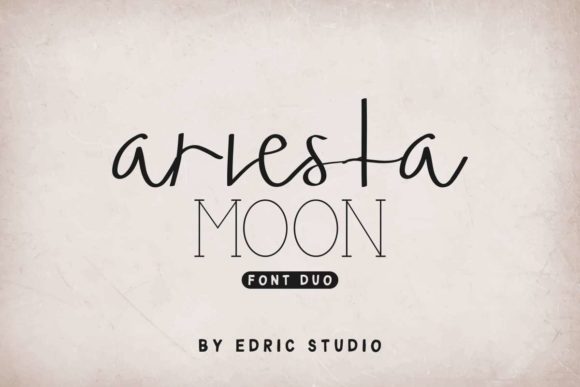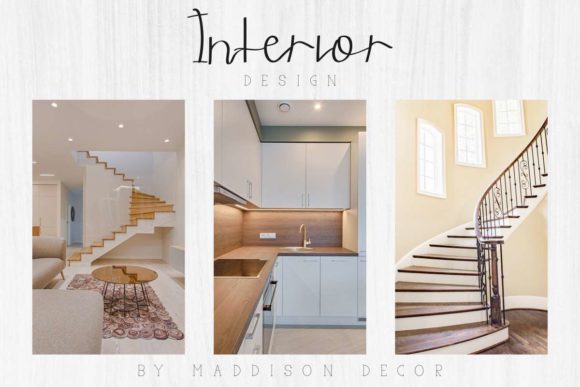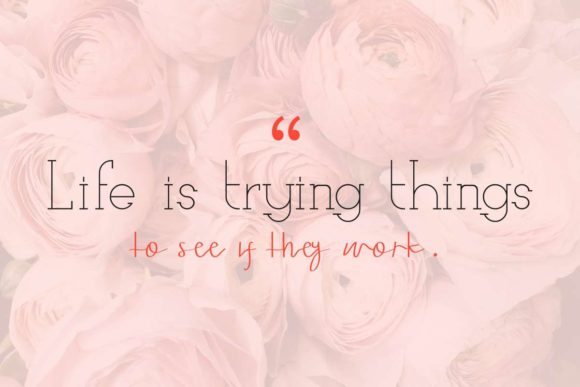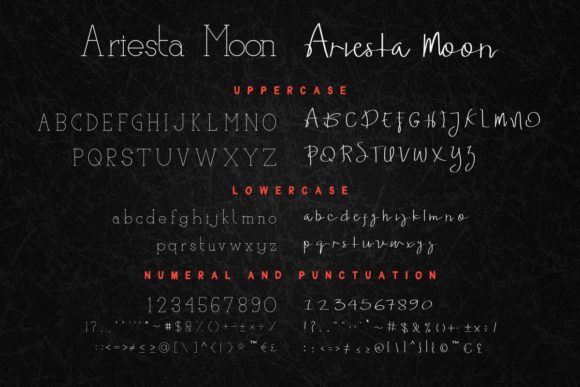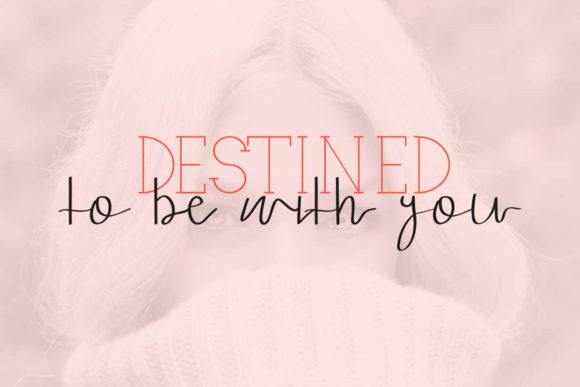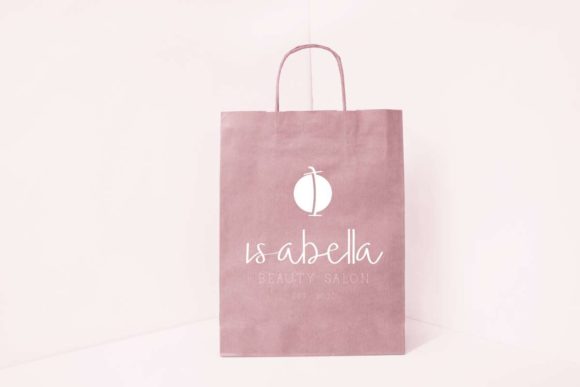
Ariesta Moon Duo Font: A Match Made in Heaven for Designers and Crafters
In the world of typography, finding the perfect font duo can be a game-changer for designers and crafters. The Ariesta Moon Duo Font is one such pairing that has captured the hearts of many with its unique blend of playfulness and elegance. This article will dive into the features, benefits, and uses of the Ariesta Moon Duo Font, exploring how it can elevate your designs and DIY projects.
The Perfect Pairing: Script and Serif
The Ariesta Moon Duo Font consists of two complementary fonts: a script font and a serif font. The script font boasts authentic glyphs that exude a sense of elegance and sophistication, while the serif font provides a sturdy and classic feel. When used together, these two fonts create a harmonious balance that is sure to impress. The script font’s fluid curves and whimsical touches perfectly complement the serif font’s clean lines and structured style, making them a match made in heaven.
Unleashing Creativity with Versatility
One of the standout features of the Ariesta Moon Duo Font is its versatility. This font duo can be used in a wide range of applications, from branding and advertising to DIY projects and personal crafts. Whether you’re designing a logo, creating a social media graphic, or working on a handmade craft, the Ariesta Moon Duo Font can help you achieve a professional and polished look.
Branding and Advertising
For businesses and entrepreneurs, the Ariesta Moon Duo Font offers a unique opportunity to create a cohesive brand identity. Use the script font for headings and titles, while the serif font provides a clear and readable body text. This font duo is perfect for:
- Logos and logotypes
- Brochures and flyers
- Packaging and labels
DIY Projects and Crafts
For crafters and DIY enthusiasts, the Ariesta Moon Duo Font offers endless possibilities for creative expression. Use this font duo to:
- Create personalized stationery and cards
- Design custom iron-on transfers and decals
- Make beautiful handmade journals and planners
- Customize party invitations and decorations
Tips and Tricks for Using the Ariesta Moon Duo Font
To get the most out of the Ariesta Moon Duo Font, here are some tips and tricks to keep in mind:
- Experiment with different font sizes and combinations to find the perfect balance for your design.
- Use the script font for headings and titles, while the serif font provides a clear and readable body text.
- Don’t be afraid to add your own personal touches and flair with decorative elements and graphics.
- Take advantage of the font’s versatility by using it in different contexts and applications.
The Ariesta Moon Duo Font is a powerful tool for designers and crafters looking to elevate their designs and DIY projects. With its unique blend of playfulness and elegance, this font duo offers endless possibilities for creative expression. Whether you’re working on a branding project or a handmade craft, the Ariesta Moon Duo Font is sure to impress. So why wait? Download the Ariesta Moon Duo Font today and unlock a world of creative possibilities!